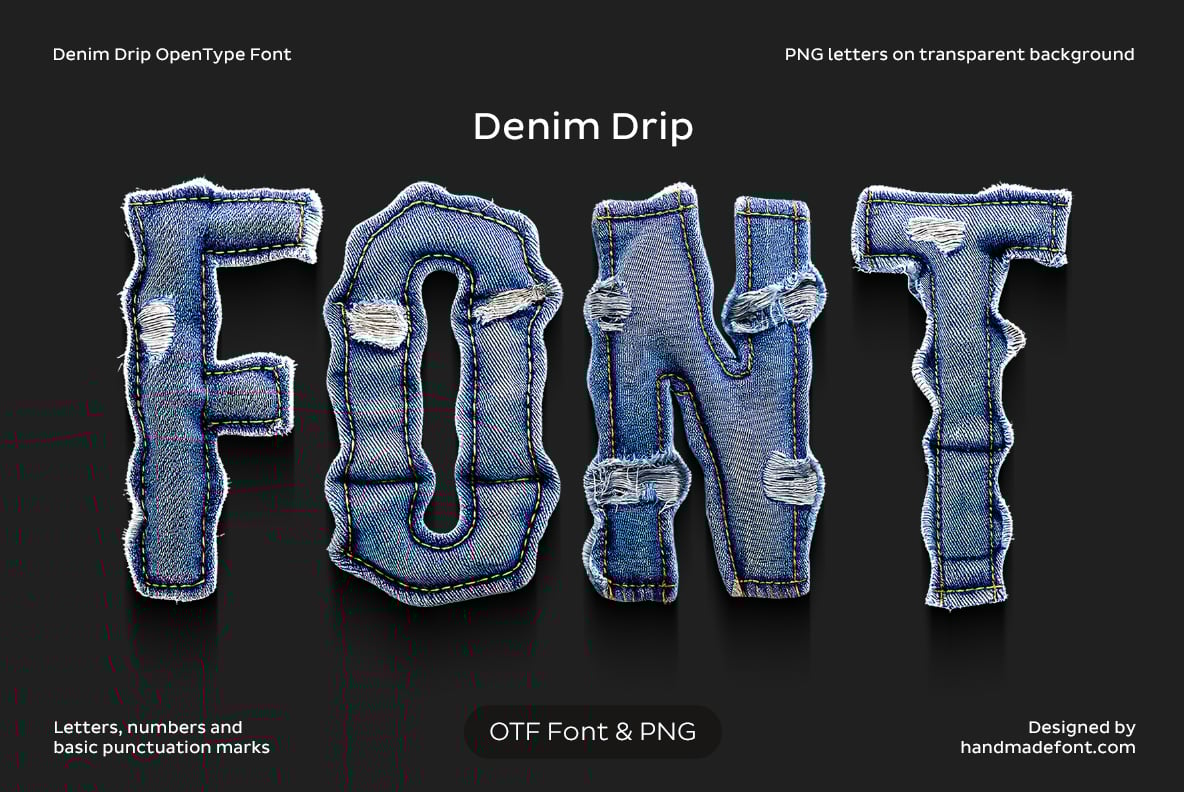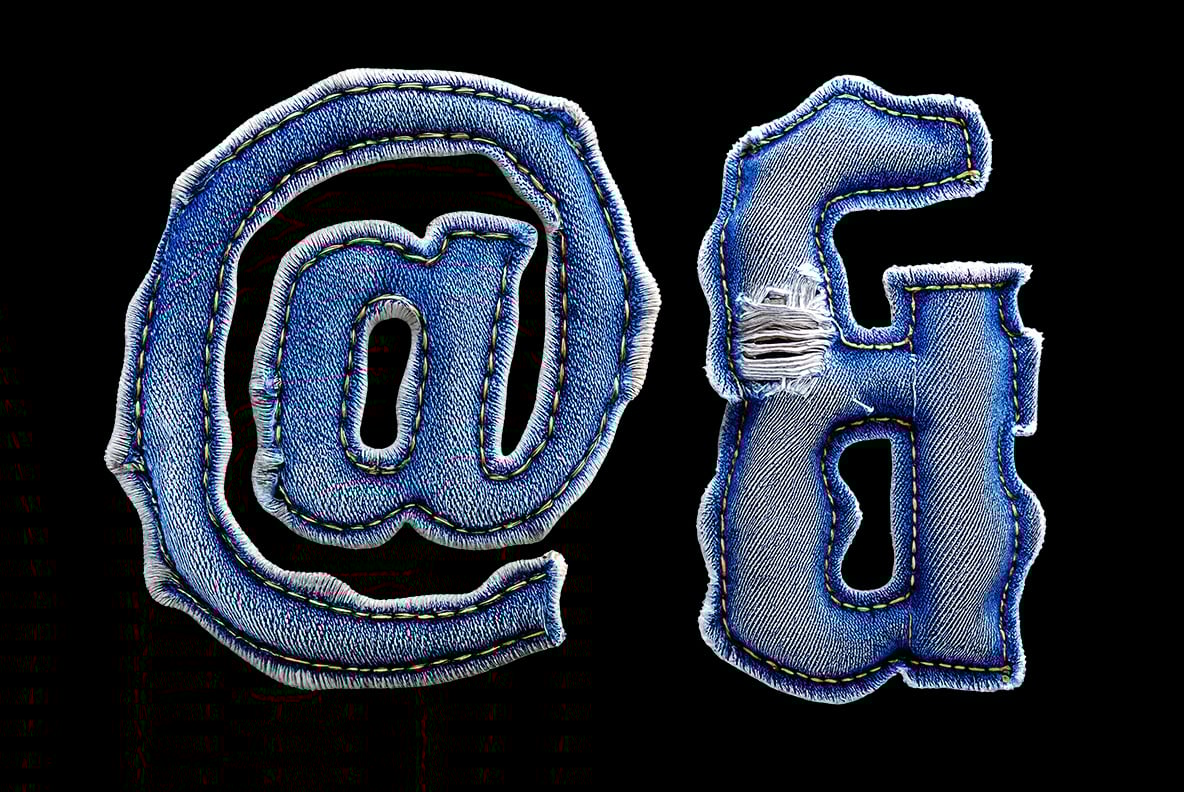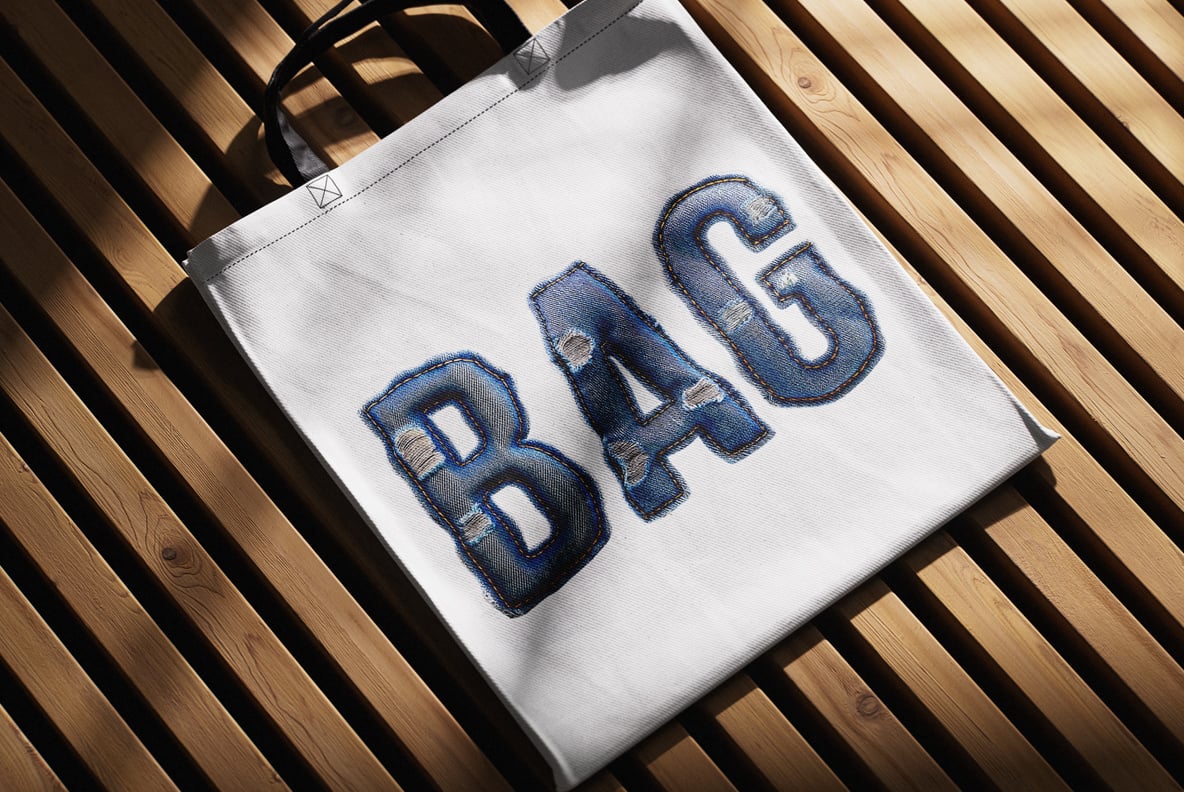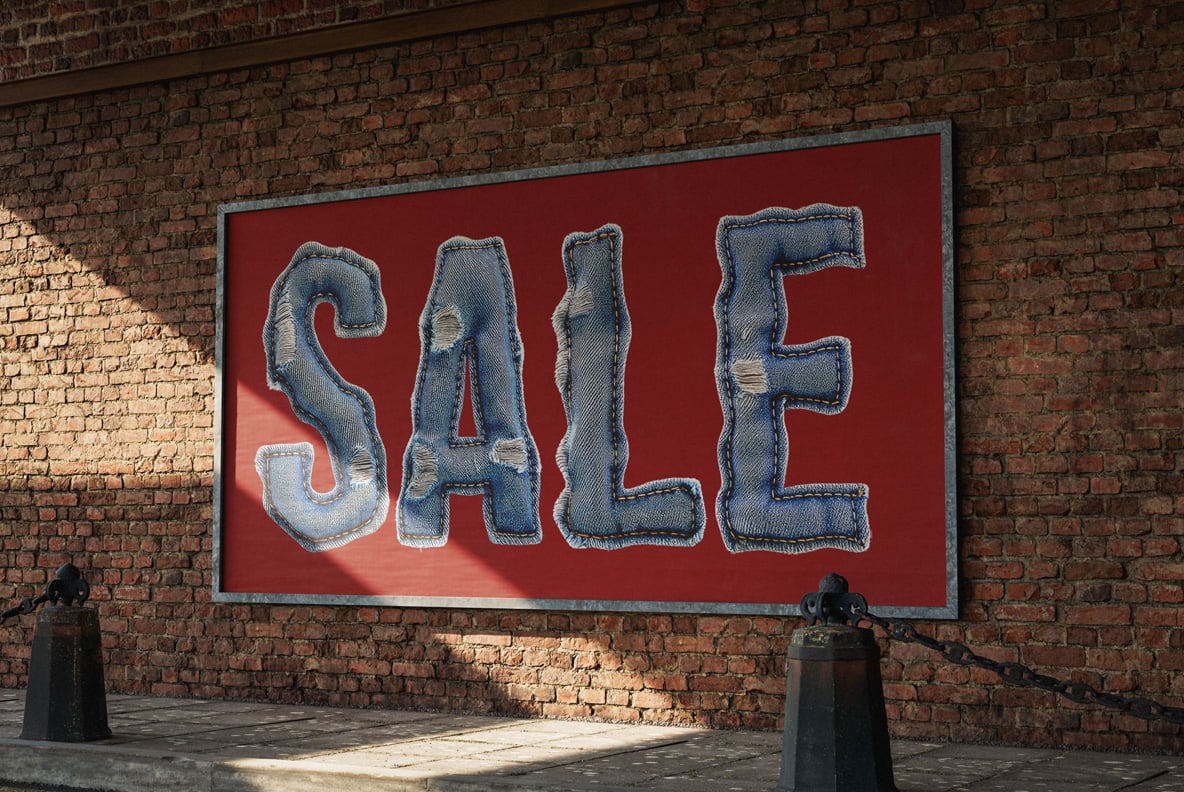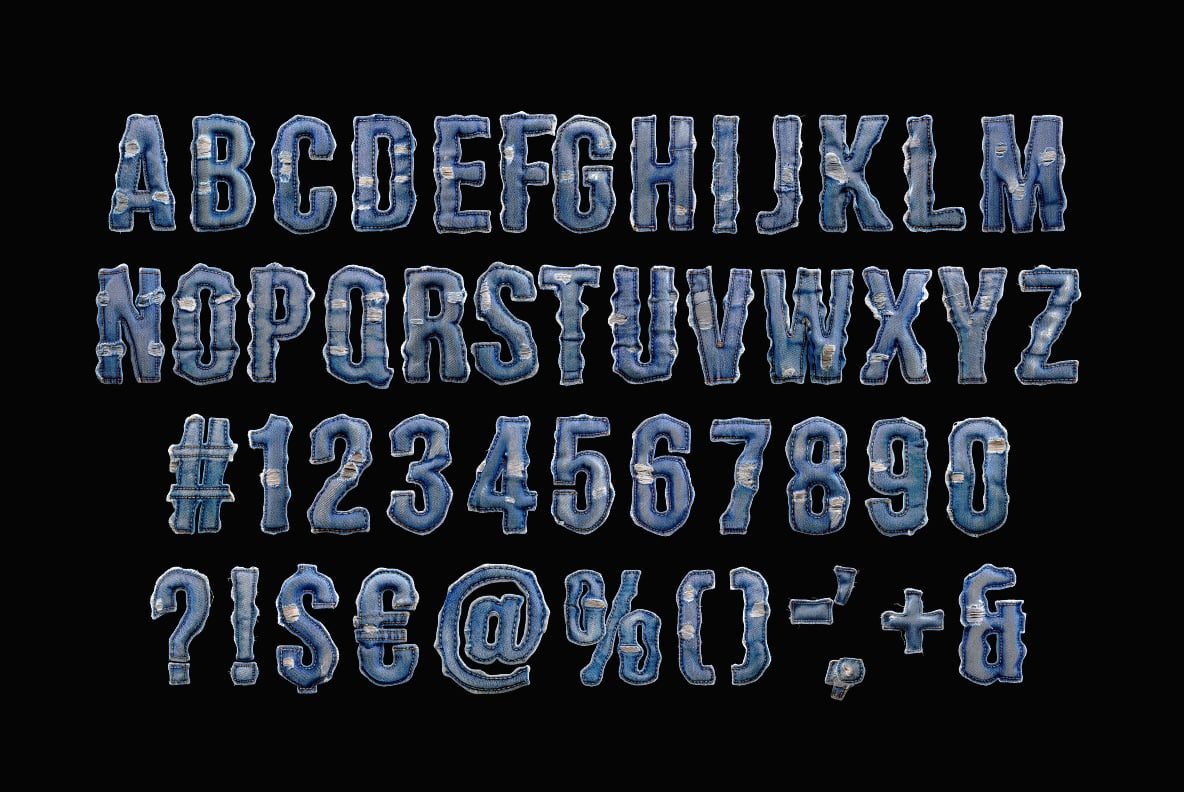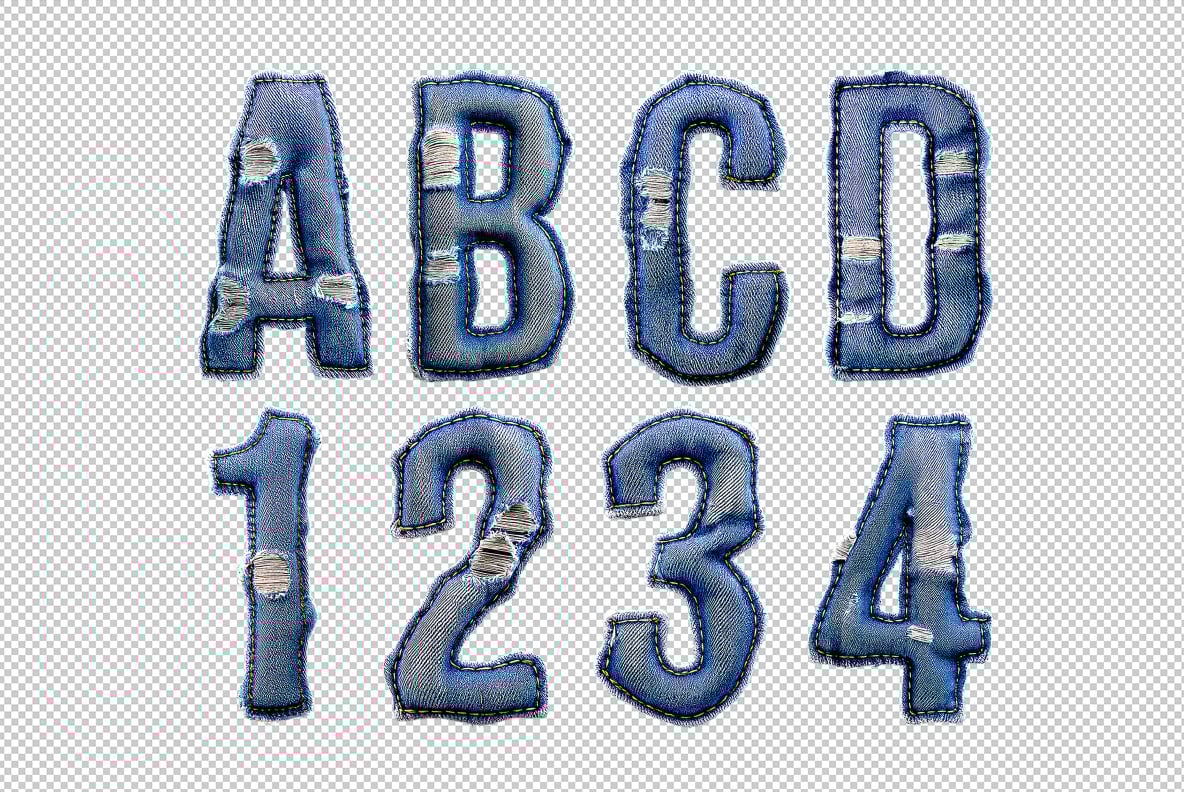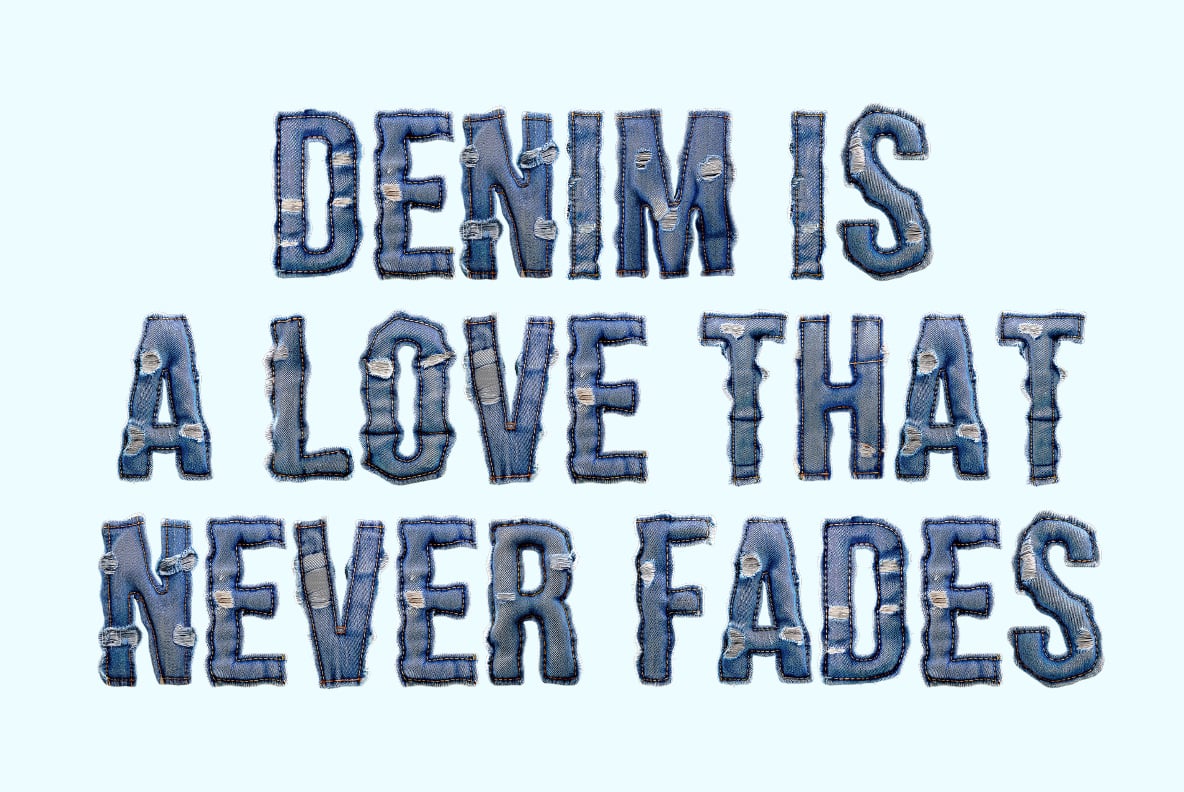
Denim Drip Font
Say hello to "Denim Drip Font"—a rebellious, ripped, and rugged typeface that’s stitched together with attitude and indigo dreams. This isn’t just a font, it’s a full-on denim revolution. Every letter is frayed, faded, and fashionably torn like your favorite pair of vintage jeans. With its hand-sewn aesthetic, worn edges, and distressed details, "Denim Drip" brings a whole lot of street style to your words. Perfect for fashion campaigns, edgy posters, or anything that needs a little rock 'n' roll swagger. Slip it on, button it up, and strut your message with all the confidence of a runway model in ripped skinnies.